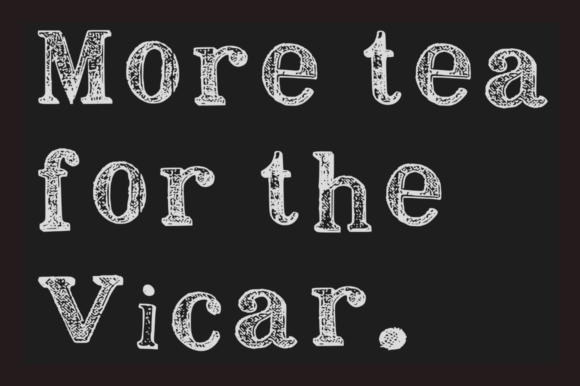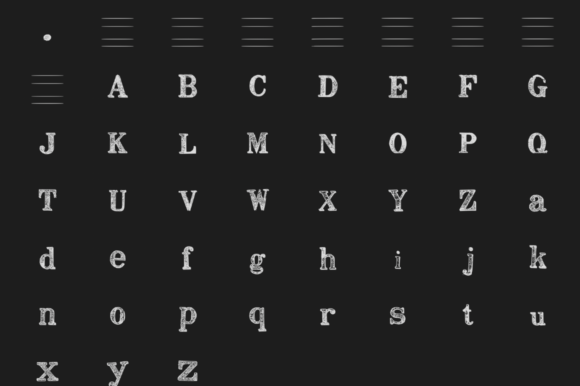
Introduction to Rough Times Regular Font Font
Rough Times is a cool and textured display font.
It is perfect for product packaging, branding project, magazine covers, social media, wedding, or just used to express words above the background .